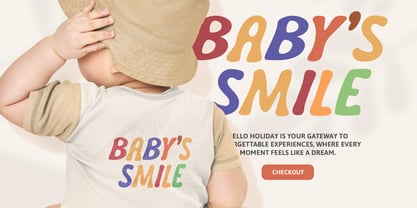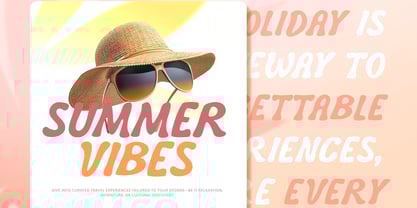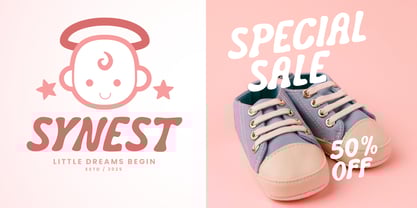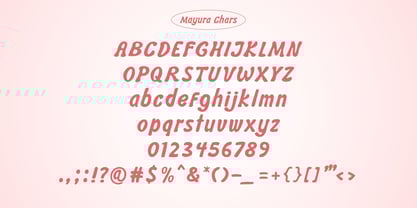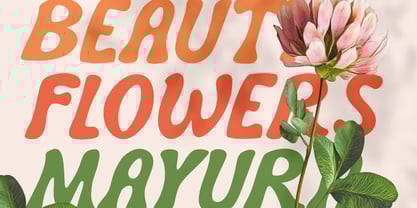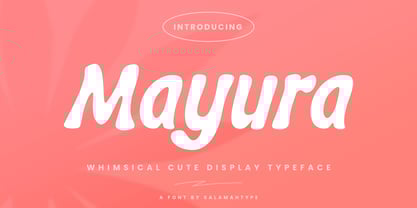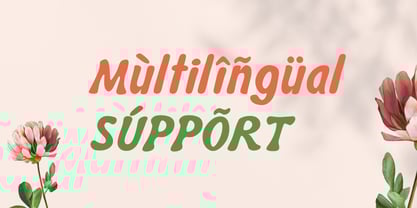
Mayura
by Salamahtype
The Mayura Font Family was designed by Aswangga Sadike and published by Salamahtype. Mayura contains 2 styles and family package options.
Mayura is a cute and versatile typeface designed to bring charm to all your projects. It features a complete set of uppercase and lowercase letters, numbers, symbols, and multilingual support, making it a perfect choice for creative designs. Whether you’re working on baby-themed projects or looking to add a playful touch to your work, Mayura has everything you need.
This font is ideal for branding, allowing you to craft adorable logos that captivate your audience. It’s also perfect for promotional banners, websites, and social media posts, helping you design eye-catching graphics that stand out. Additionally, its clean and charming style makes it great for paragraph text, especially for digital planners like Goodnotes. Let Mayura bring warmth and sweetness to every design you create!
• Character Set: Uppercase & Lowercase
• Numbers & Punctuation
• Support: Multilingual
Designers: Aswangga Sadike
Publisher: Salamahtype
Foundry: Salamahtype
Design Owner: Salamahtype